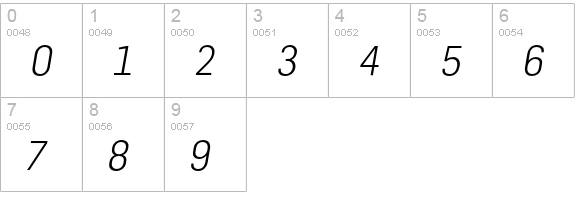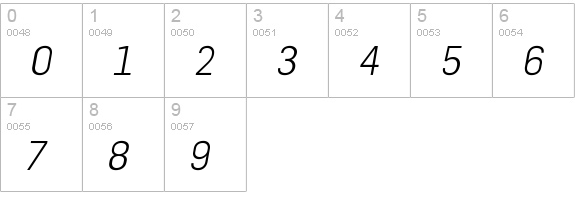
FlamaLight Italic Font Details
FlamaLight Italic is a distinctive, italic variant in the FlamaLight typeface family \xE2\x80\x94 well suited to design and typography projects.
FlamaLight Italic font is a sleek and modern typeface that exudes elegance and sophistication. With its subtle curves and stylish slant, this font is perfect for adding a touch of class to any design project. The Italic style adds a sense of dynamism and movement, making it ideal for adding emphasis to important text. What sets FlamaLight Italic apart is not just its stunning design, but also the fact that it is available for free. That's right, you can download this exquisite font at no cost from FontsMarket.com. Whether you're working on a branding project, website design, or any other creative endeavor, FlamaLight Italic is sure to make a lasting impression. Don't miss out on the opportunity to elevate your designs with this exceptional font – download FlamaLight Italic today!